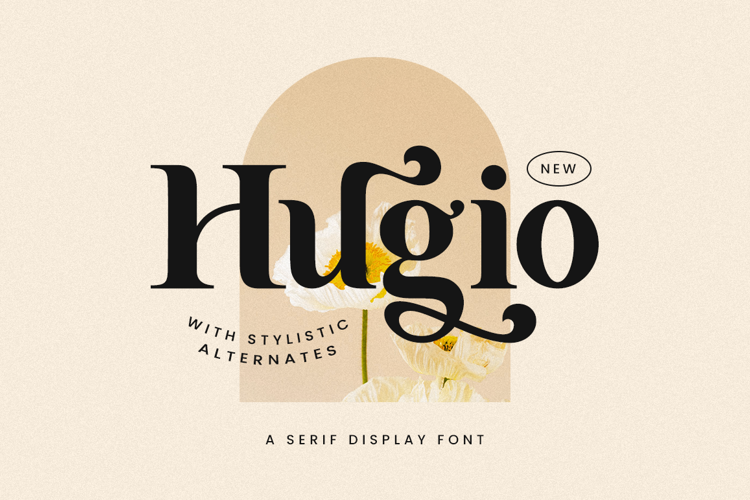
Hugio Font
Hugio is a simple and casual serif font with an undeniably clean feel. With its neat and beautiful arrangement of letters, this typeface will look outstanding in both formal and non-formal designs.